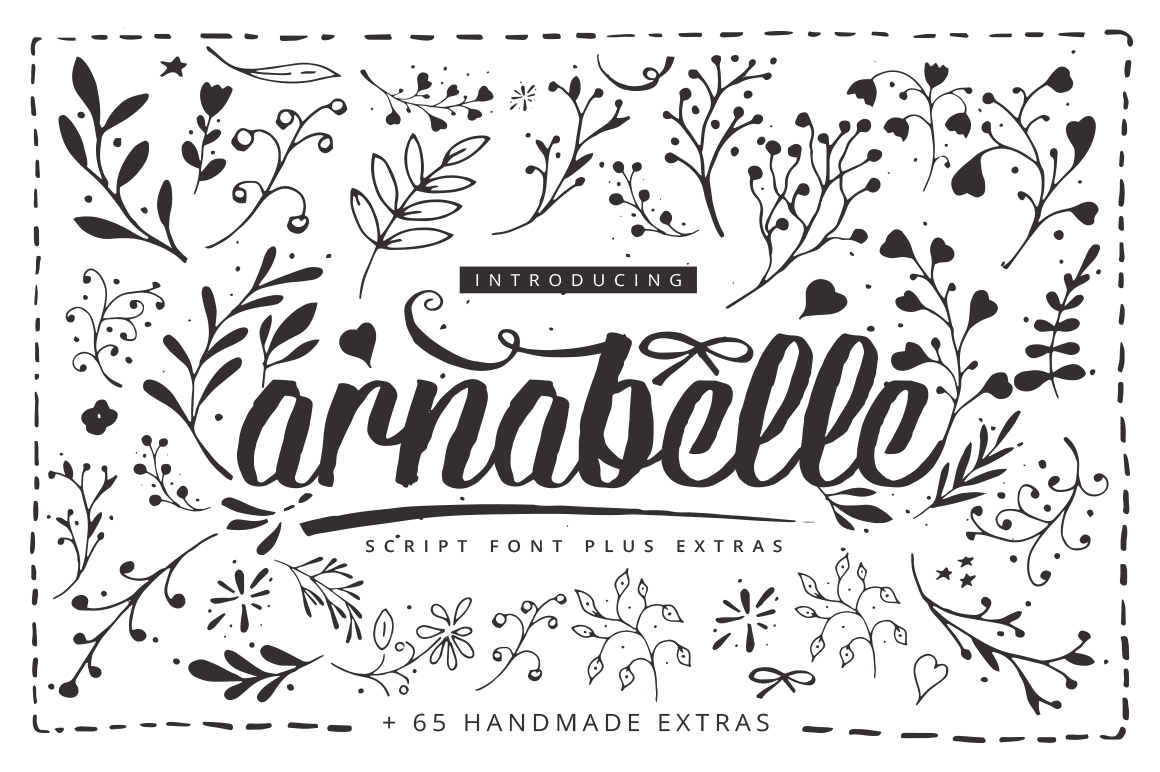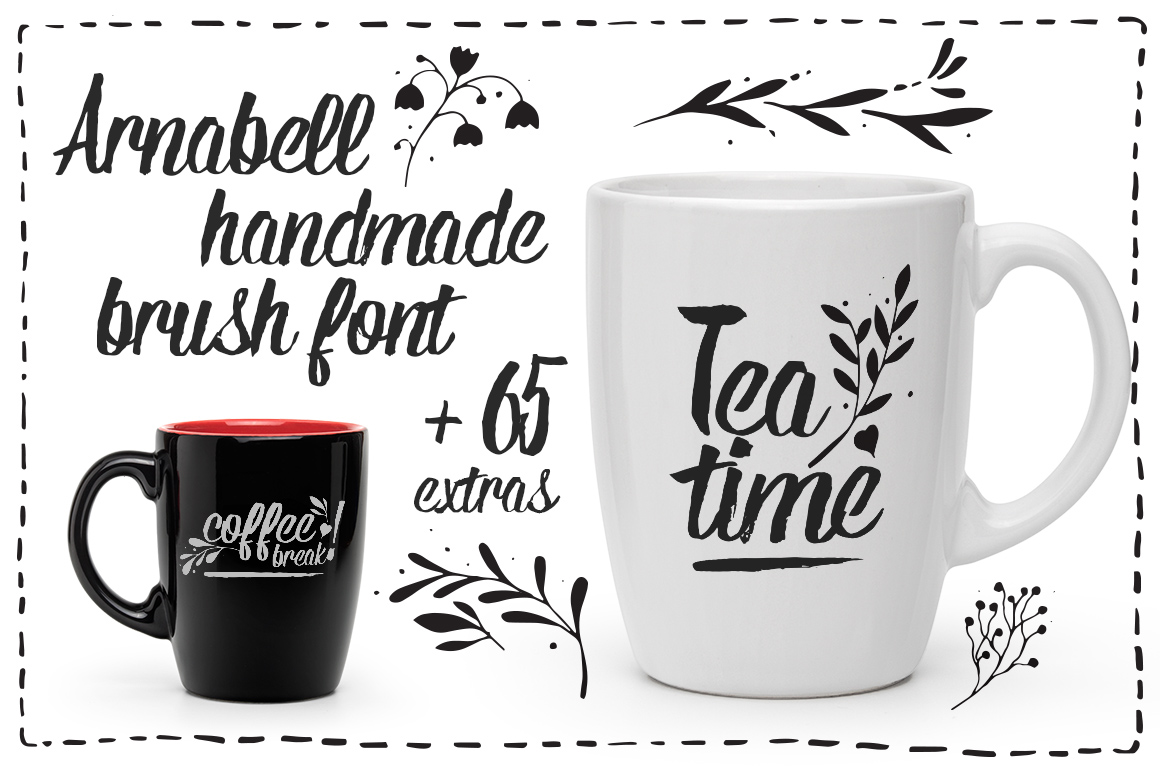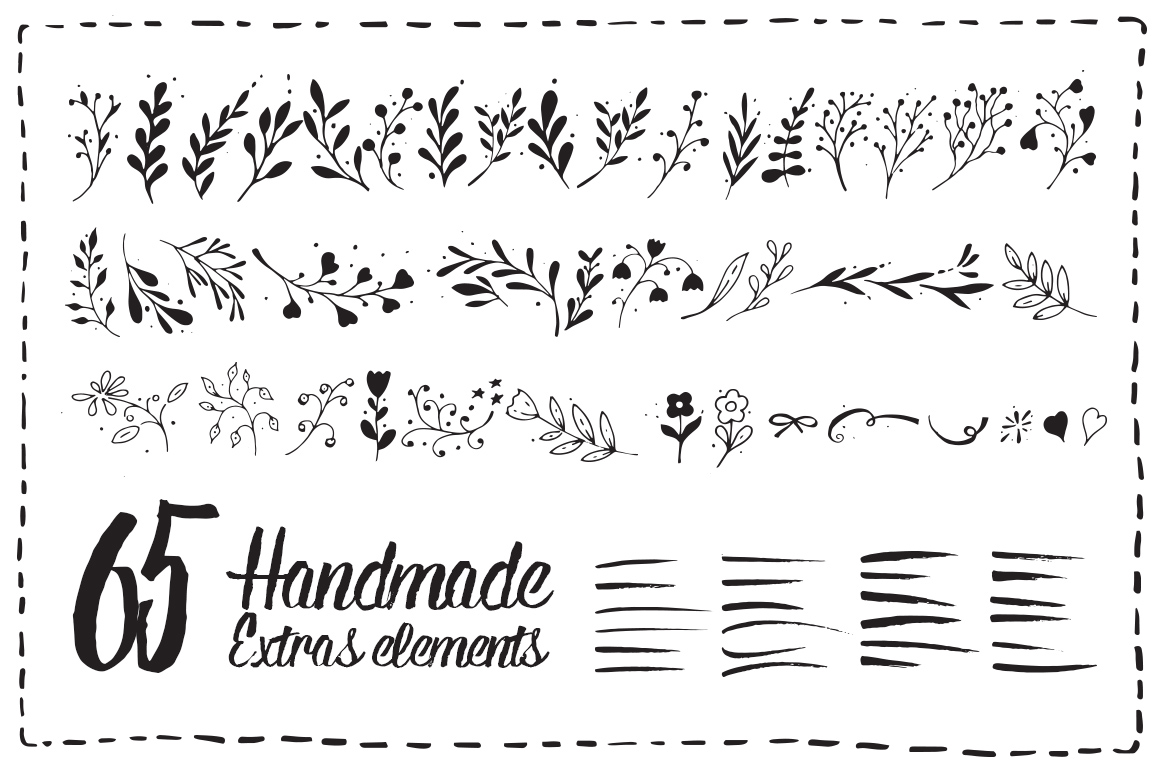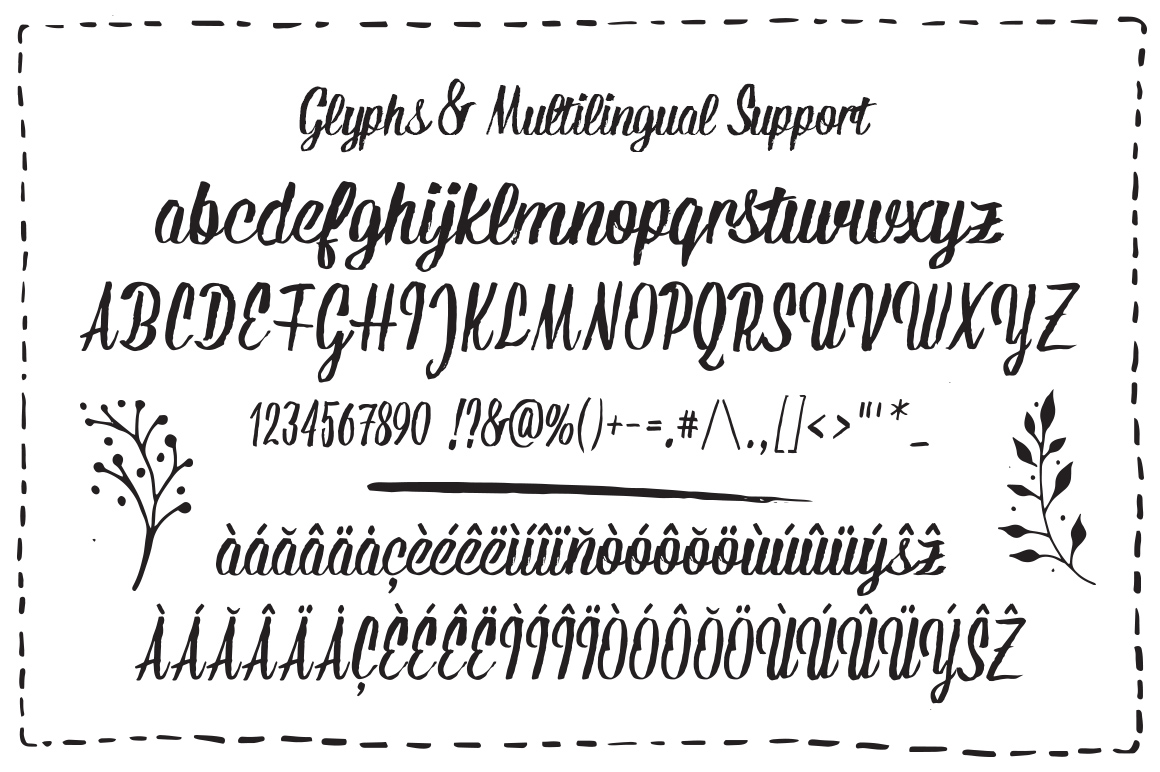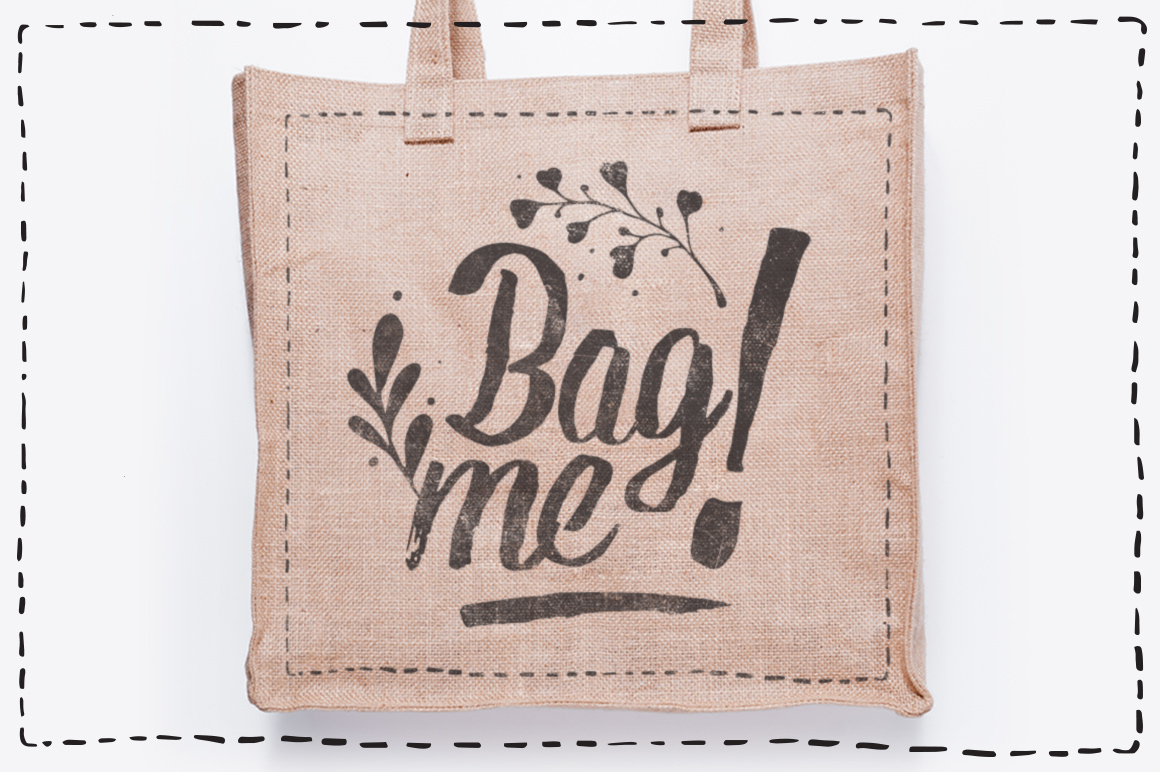
Arnabelle Script Font
About Arnabelle Script Font
Arnabelle is a beautiful hand-drawn script font that is packed with 65 bonus glyphs. This font is extremely versatile and can be used both in a professional setting and for crafts.